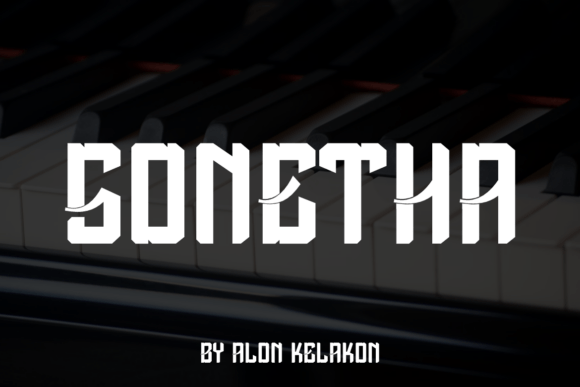
Sonetha Font: Unleash the Unique Charm of Your Designs
In the world of design, fonts play a crucial role in bringing a creative vision to life. A well-crafted font can elevate a design from ordinary to extraordinary, making it essential to choose the right one for your project. If you’re looking for a font that can add a touch of uniqueness and charm to your designs, look no further than Sonetha Font. In this article, we’ll explore the features and benefits of Sonetha Font, and how it can help you unleash your creativity and take your designs to the next level.
Key Features of Sonetha Font
- Versatility: Whether you’re designing a movie scene, poster, gig banner, album cover, or logo, Sonetha Font is the perfect choice.
- Timeless appeal: With its unique charm and classic appeal, Sonetha Font is a timeless companion for your design journey.
Design Applications of Sonetha Font
Sonetha Font is a versatile font that can be used in a variety of design applications. Here are a few examples:
- Movie scenes: Add a touch of drama and sophistication to your movie scenes with Sonetha Font.
- Posters: Create eye-catching posters that grab attention with Sonetha Font’s unique charm.
- Gig banners: Make your gig banners stand out from the crowd with Sonetha Font’s bold and vibrant style.
- Album covers: Give your album covers a professional and polished look with Sonetha Font.
- Logos: Create a lasting impression with Sonetha Font’s distinctive and memorable style.
Avant-Garde vs Classic: How Sonetha Font Adapts to Different Design Aesthetics
One of the standout features of Sonetha Font is its ability to adapt to different design aesthetics. Whether you’re going for an avant-garde look or a classic appeal, Sonetha Font is the perfect choice. Here are a few examples:
- Avant-garde: Sonetha Font’s unique charm and bold style make it perfect for avant-garde designs that push the boundaries of creativity.
- Classic: Sonetha Font’s timeless appeal and classic style make it perfect for designs that require a touch of sophistication and elegance.
Tips for Using Sonetha Font
Here are a few tips for using Sonetha Font in your designs:
- Experiment with different sizes: Sonetha Font looks great in a variety of sizes, from small and subtle to large and bold.
- Play with colors: Sonetha Font comes in a range of colors, so don’t be afraid to experiment and find the perfect hue for your design.
- Mix and match with other fonts: Sonetha Font pairs well with a variety of other fonts, so feel free to get creative and try out different combinations.
Why Choose Sonetha Font?
With so many fonts to choose from, why should you choose Sonetha Font? Here are a few reasons:
- Unique charm: Sonetha Font has a unique charm that sets it apart from other fonts.
- Versatility: Sonetha Font is versatile and can be used in a variety of design applications.
- Timeless appeal: Sonetha Font has a timeless appeal that ensures your designs will look great for years to come.
In conclusion, Sonetha Font is a versatile and unique font that can add a touch of charm and sophistication to your designs. With its multi-format compatibility, timeless appeal, and ease of use, Sonetha Font is the perfect choice for designers of all levels. Whether you’re going for an avant-garde look or a classic appeal, Sonetha Font is a timeless companion for your design journey. So why wait? Experience the power of Sonetha Font today and take your designs to the next level!